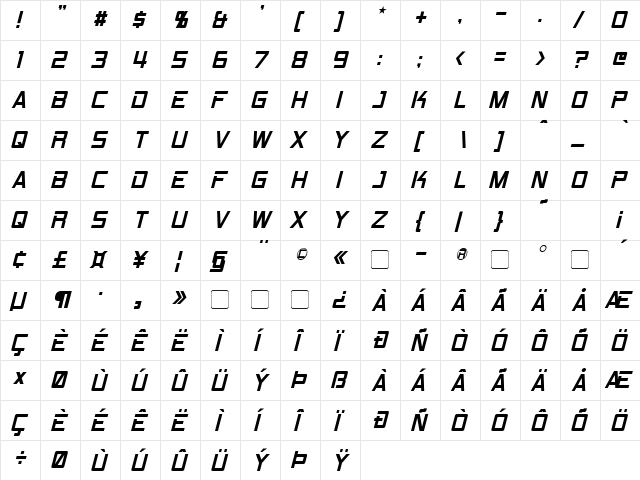
RPM Italic
| Foundry | Pixel Sagas |
| Designer | Neale Davidson |
Design Context for RPM Typeface
RPM offers clean, dependable letterforms without strong stylistic allegiance, making it a practical choice for designers who need flexibility. The dynamic lean of this cut emphasises speed and emphasis in any layout.
Pro Tip: Use RPM for emphasis, pull quotes, and subheadings where its slanted energy can add rhythm to the layout.